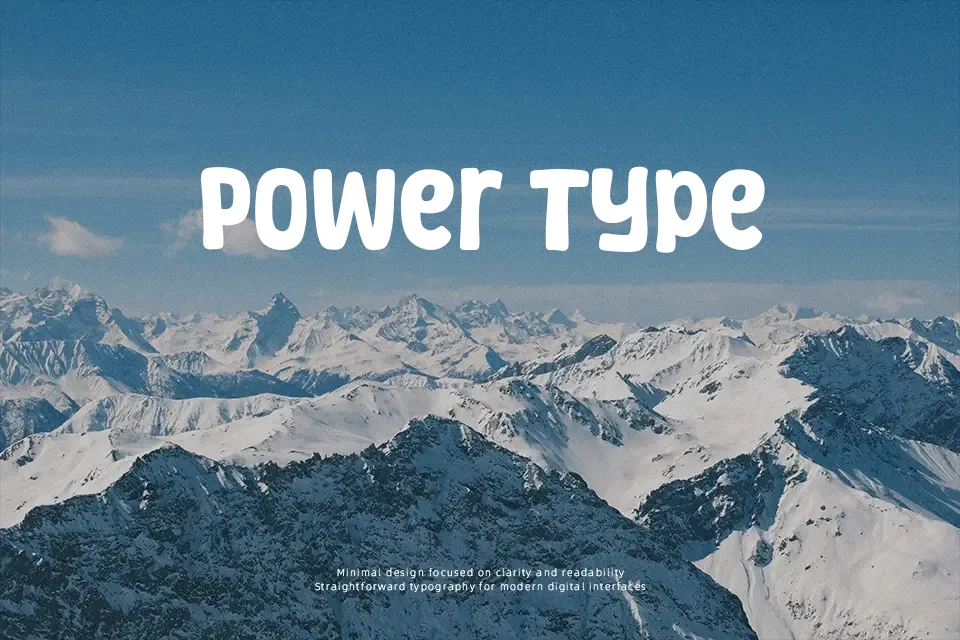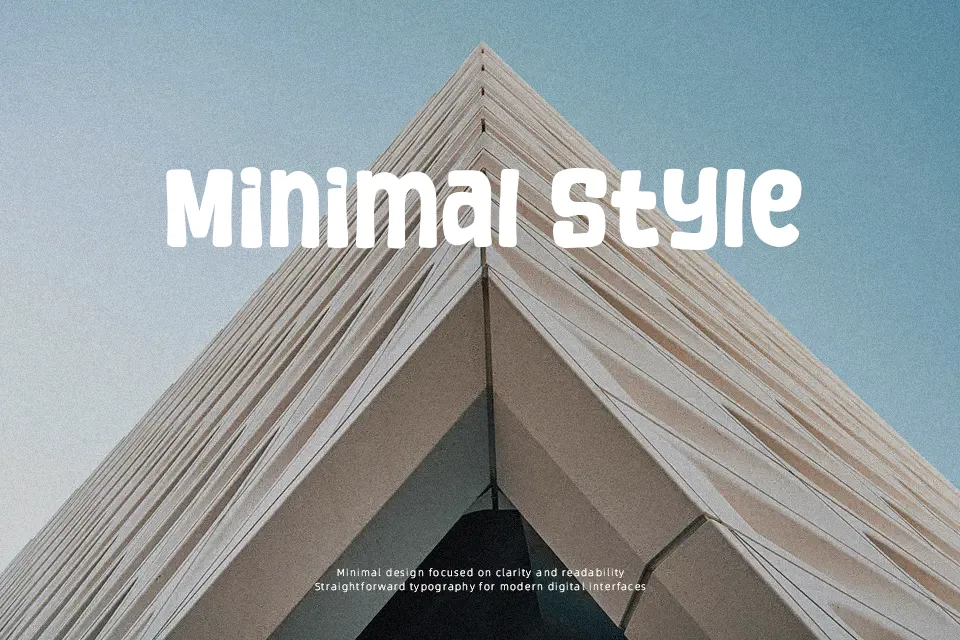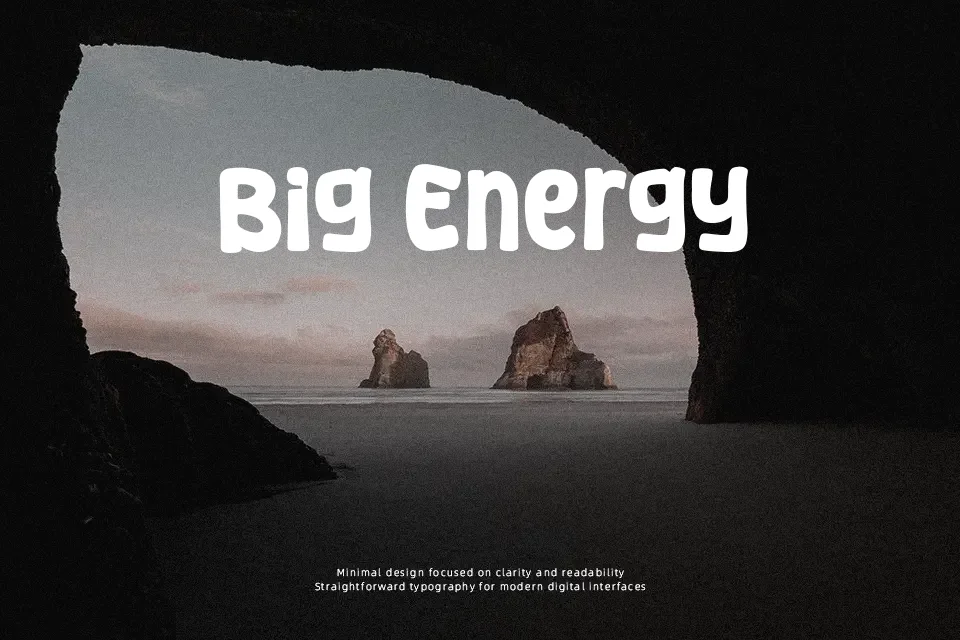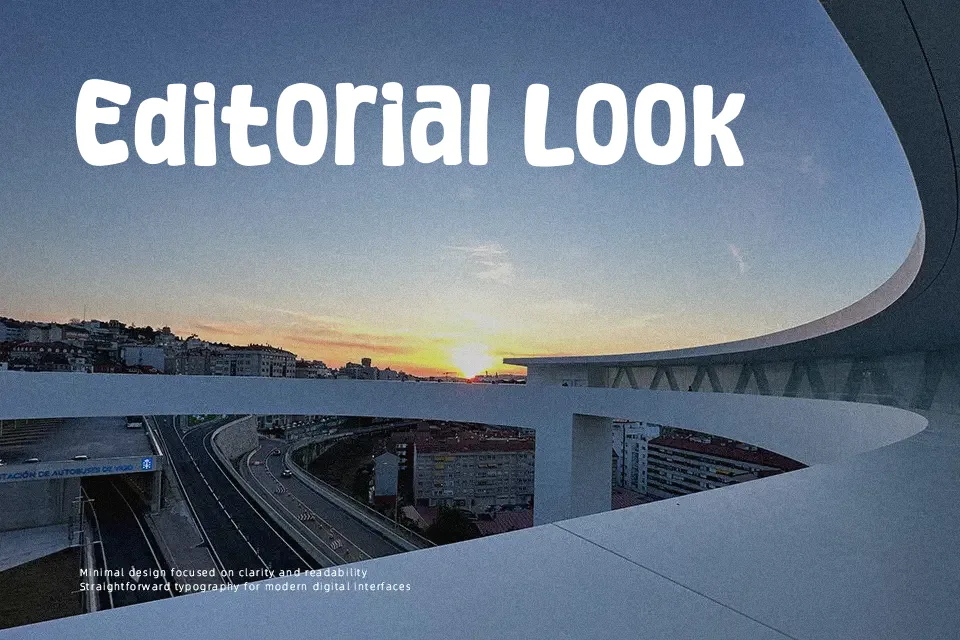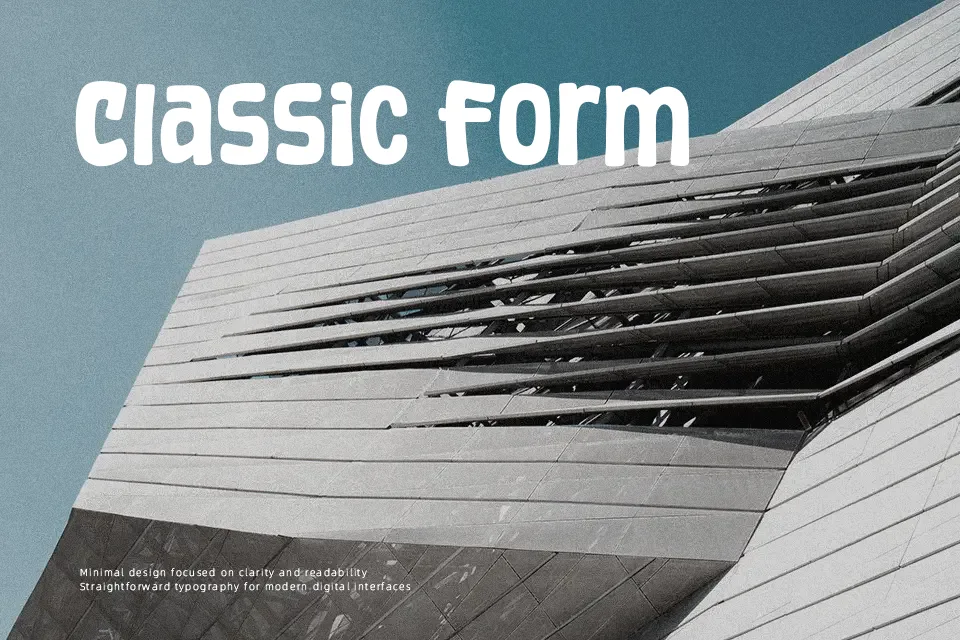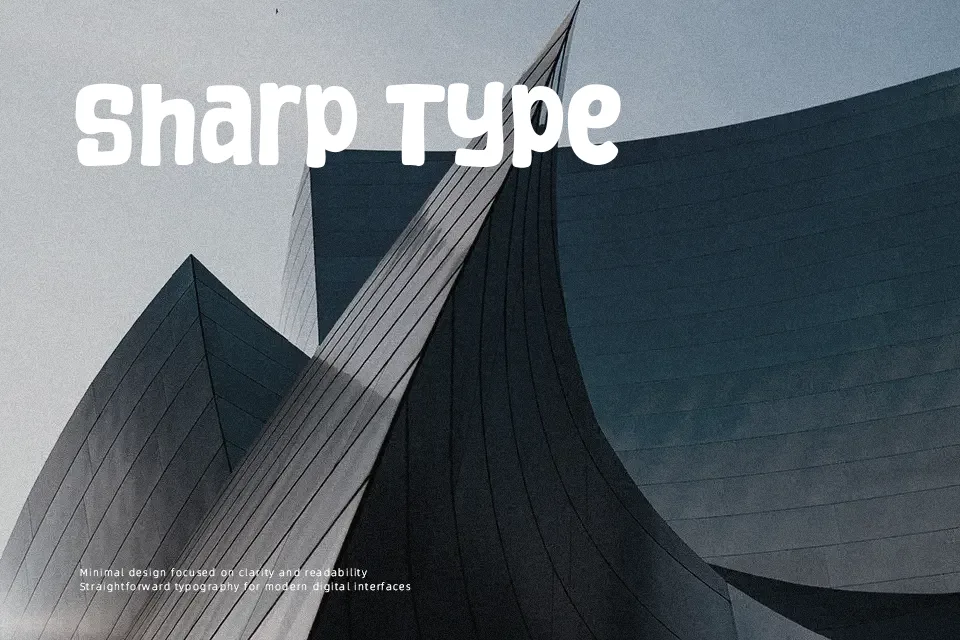
August Shining Font
Designed by Khurasan™
Chunky strokes, squarish curves, and soft rounded corners define August Shining — a cartoon display font that channels gummy, hand-inked character without losing structure. Letters sit with a semi-condensed rhythm that feels bouncy at headline sizes but starts to lose charm if forced into tight multi-line settings. Works well for snack packaging headers, birthday invites, classroom posters, and playful app splash screens where big, friendly type does the heavy lifting. Readability holds at large sizes, yet the bubbly silhouette becomes distracting in anything beyond three-line display use. A clean geometric sans alongside it keeps layouts balanced; add generous tracking and line height to prevent the rounded shapes from crowding. The font reads as deliberate fun — not accidental quirk — which earns it more trust than most in the cartoon category.
Best For:- Kids’ book cover titles and chapter headers
– Birthday invitation headlines and party packaging
– YouTube thumbnail text and social media graphic headers
– Snack or candy brand packaging
Not Ideal For:- Long body text or multi-paragraph copy
– Corporate reports or professional business documents
– Small-size print (below 18pt) where rounded strokes bleed together
– Formal editorial layouts requiring typographic neutrality
Perfect for branding, headline, and kids, with a bold and cartoon style.